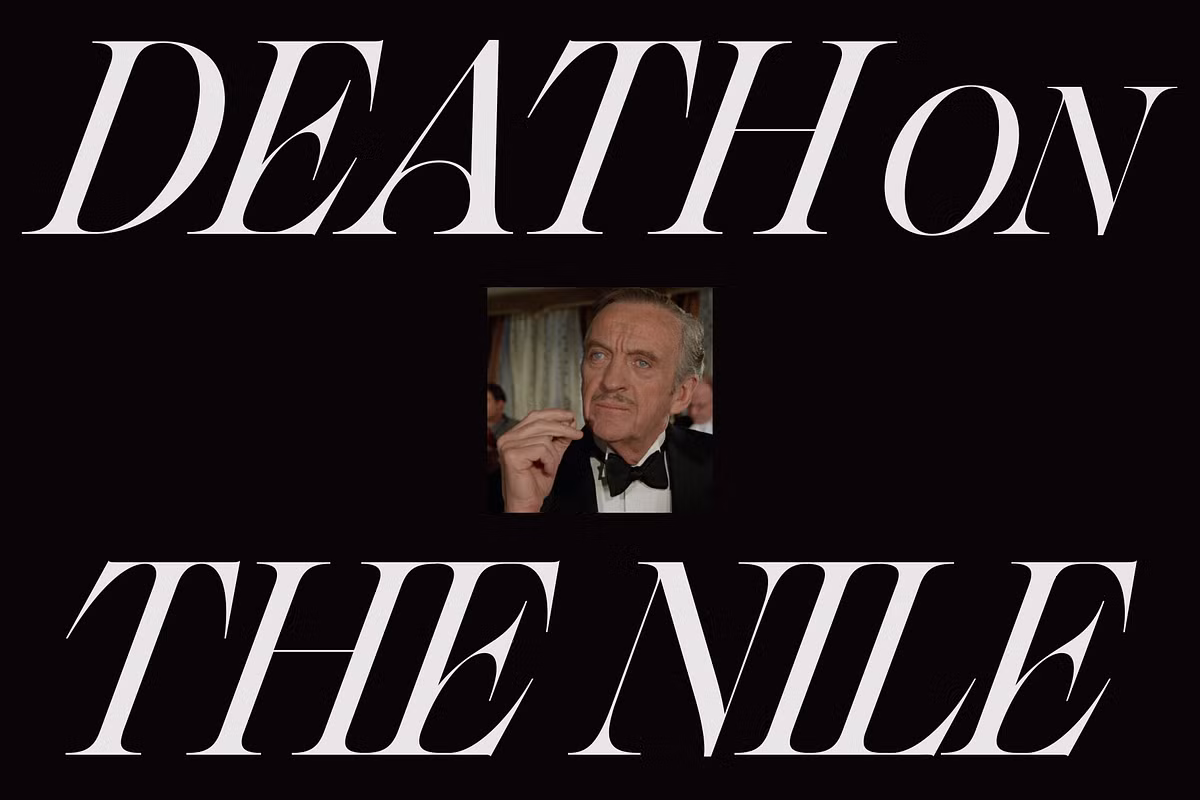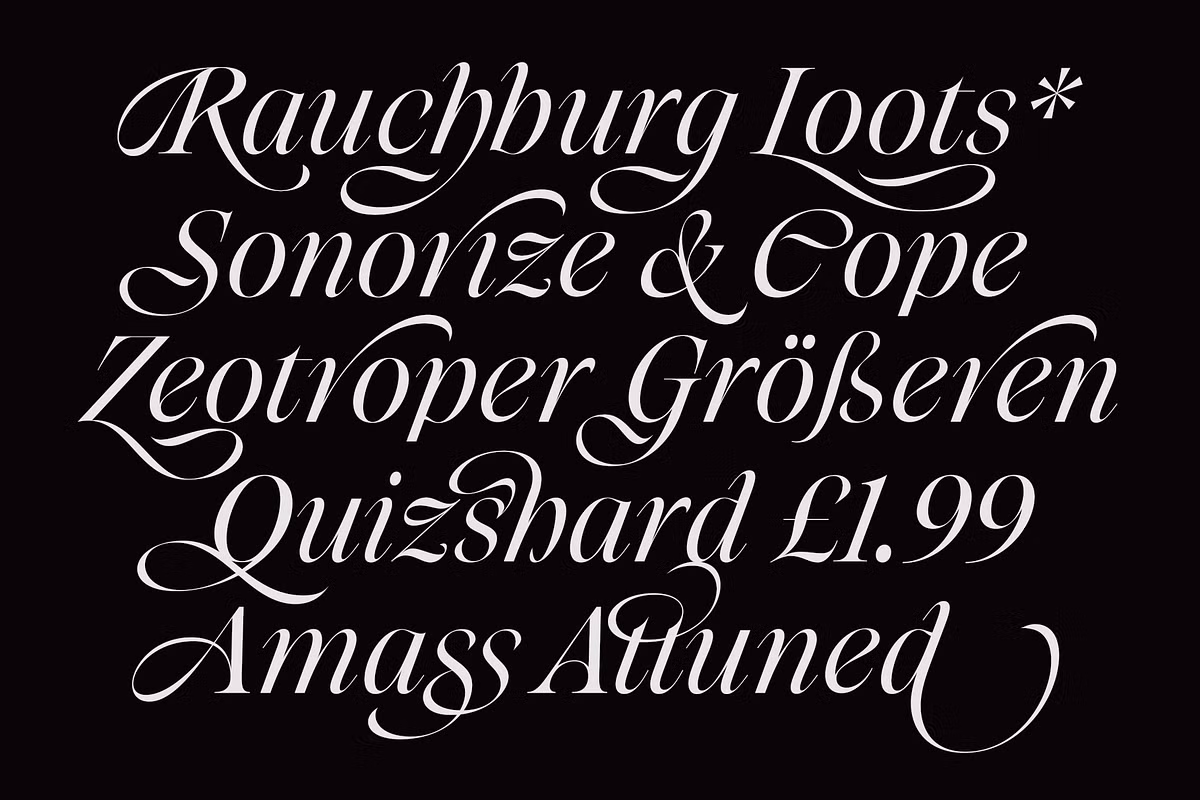
Niven Italic: An Elegant Display Serif Typeface
Niven Italic is a beautiful font that takes inspiration from old movies starring the famous actor David Niven. It has a fancy italic style that makes it great for lots of different design projects. You can get Niven Italic in five different weights, which means designers can pick the one that’s just right for what they’re working on – whether they want something really bold or a bit more subtle. This font is all about being elegant and versatile, so it’s perfect for anyone who wants to add a touch of classic style to their work. With its unique look and range of weights, Niven Italic is a great choice for designers who want to make a statement with their typography.
The design style of Niven Italic is grounded in the rich tradition of serif typefaces while incorporating a modern twist that makes it highly adaptable for contemporary design applications. The italicized nature of the font adds a dynamic flair, evoking a sense of motion and sophistication reminiscent of classic film titles and posters.
- Serif Features: The font boasts pronounced serifs that add character and enhance readability, especially at larger sizes.
- Italic Aesthetics: The slanted design gives an elegant and refined appearance, making it suitable for both headlines and body text.
- Weight Variations: With five different weights, you can create a visual hierarchy that draws attention to key information while maintaining a cohesive look across your design.
Character Sets
Niven Italic comes with a comprehensive character set that ensures it can be used effectively across various languages and typographic contexts. The font includes a range of uppercase and lowercase letters, numerals, and special characters, allowing for extensive creative expression.
Niven Italic is a great font for projects that need to look fancy and creative. It has some really cool features like ligatures and stylistic alternates that can make your text look amazing. These features can add a touch of elegance and style to your work, making it perfect for things like art projects or designs that need a little extra something. With Niven Italic, you can create text that’s not only beautiful but also unique and eye-catching. It’s a fantastic choice for anyone who wants to add some personality and flair to their writing.
Niven Italic is a really versatile font that can be used in many different design projects. It’s a great choice for a lot of things, and here are some of the most popular ways to use it:
- Film Posters: Capture the essence of classic cinema with titles and taglines that demand attention.
- Branding: Use Niven Italic for logo designs and branding materials that require a distinctive and stylish typeface.
- Editorial Design: Perfect for magazine layouts and book covers, where a touch of elegance is needed to engage readers.
- Web Design: Integrate Niven Italic into website headers or call-to-action buttons for a modern, sophisticated touch.
When it comes to typography, pairing fonts is essential for creating visually appealing designs. Niven Italic can be paired effectively with several other typefaces to enhance your project. Here are some pairing suggestions:
- With Sans-Serif Fonts: Pair Niven Italic with a clean sans-serif typeface like Montserrat or Open Sans to create a modern contrast that balances elegance with simplicity.
- With Other Serif Fonts: Combine Niven Italic with a more traditional serif font like Times New Roman or Baskerville for a classic feel that maintains readability.
- With Script Fonts: When you want to add a bit of fun and creativity to your design, think about combining Niven Italic with a script font, like Great Vibes or Pacifico. This can give your invitations and greeting cards a really special look.
By choosing Niven Italic, you’re doing more than just getting a new font – you’re helping out the people who make creative things, and you’re getting a powerful tool to make your designs stand out. This typeface can really take your work to the next level.
Niven Italic is not just a pretty font, it’s a nod to the classic movies of the past. It was inspired by the one and only David Niven, and you can see that old-school charm in its design. With five different weights to choose from, Niven Italic is super versatile – you can use it for a fancy film poster, a sleek logo, or even a magazine layout. It’s all about adding a touch of elegance and sophistication to your work. Whether you’re a designer looking to make a statement or just want to give your project a bit of vintage flair, Niven Italic is a great choice. Its classic style and modern functionality make it perfect for anyone who wants to add a little extra something to their designs. Explore the full potential of Niven Italic and elevate your typography to new heights today!